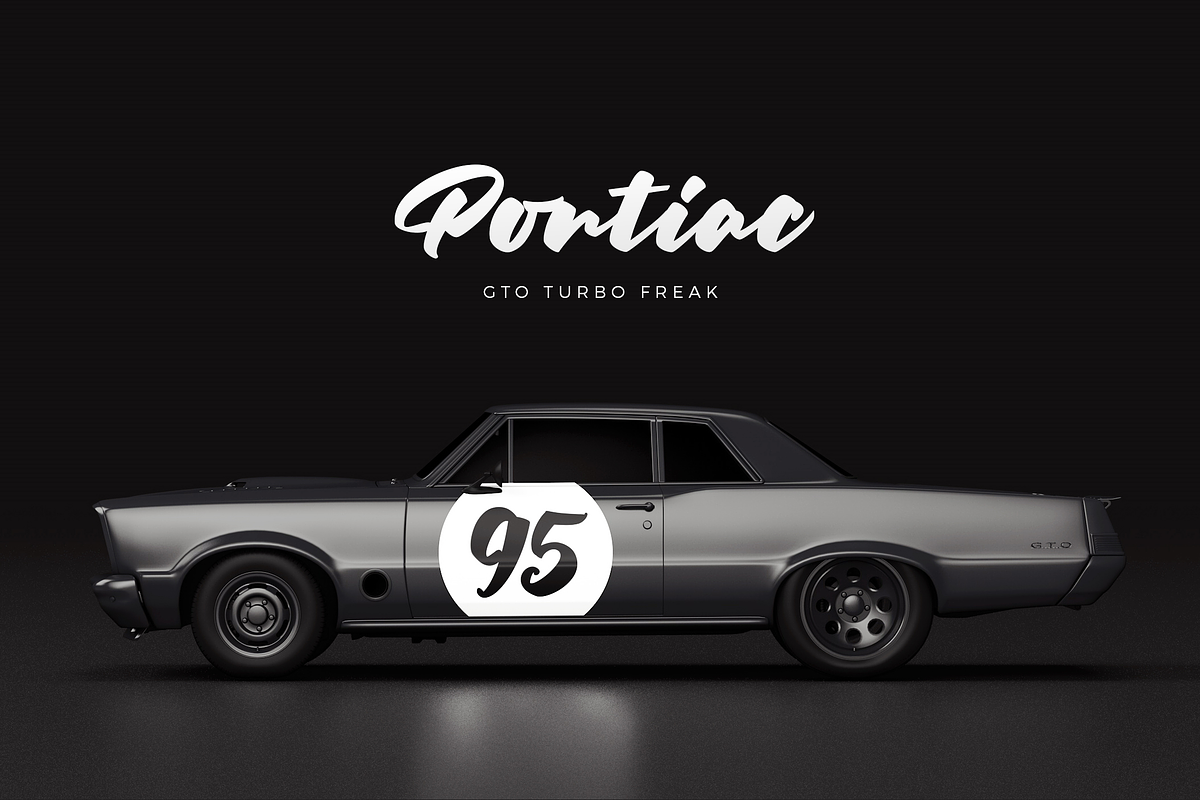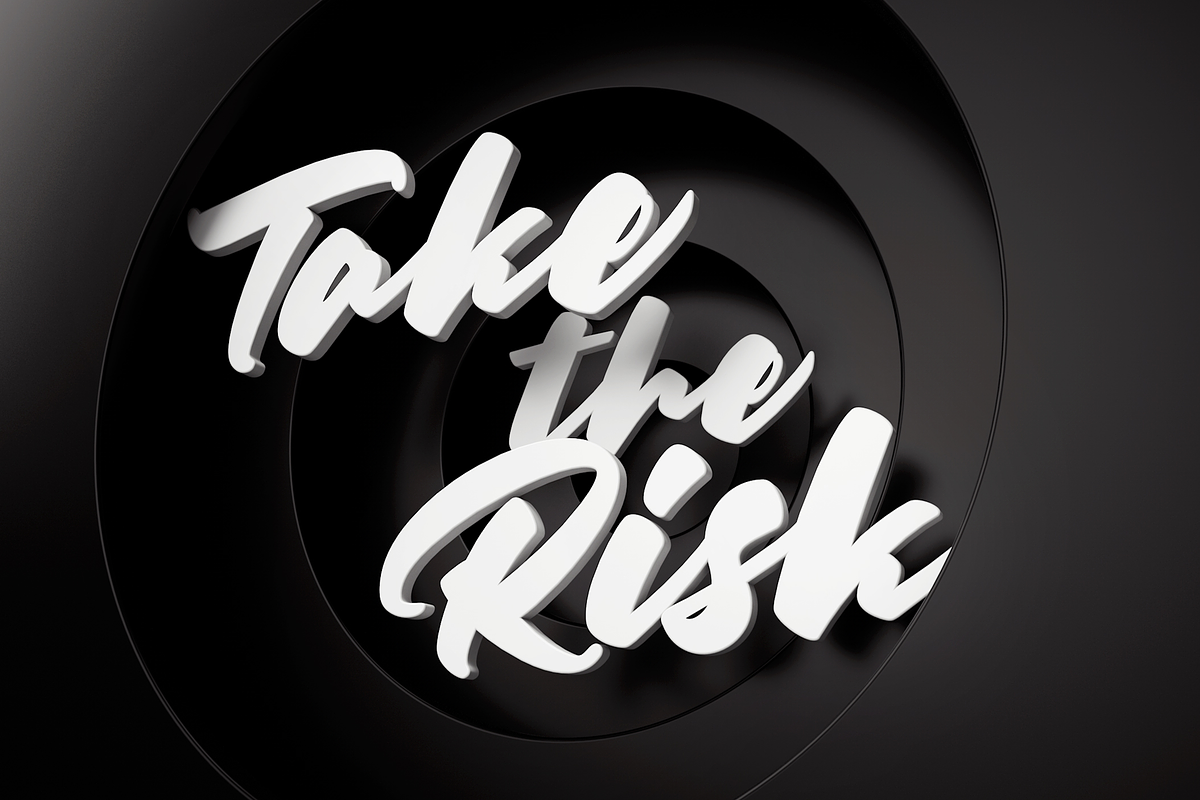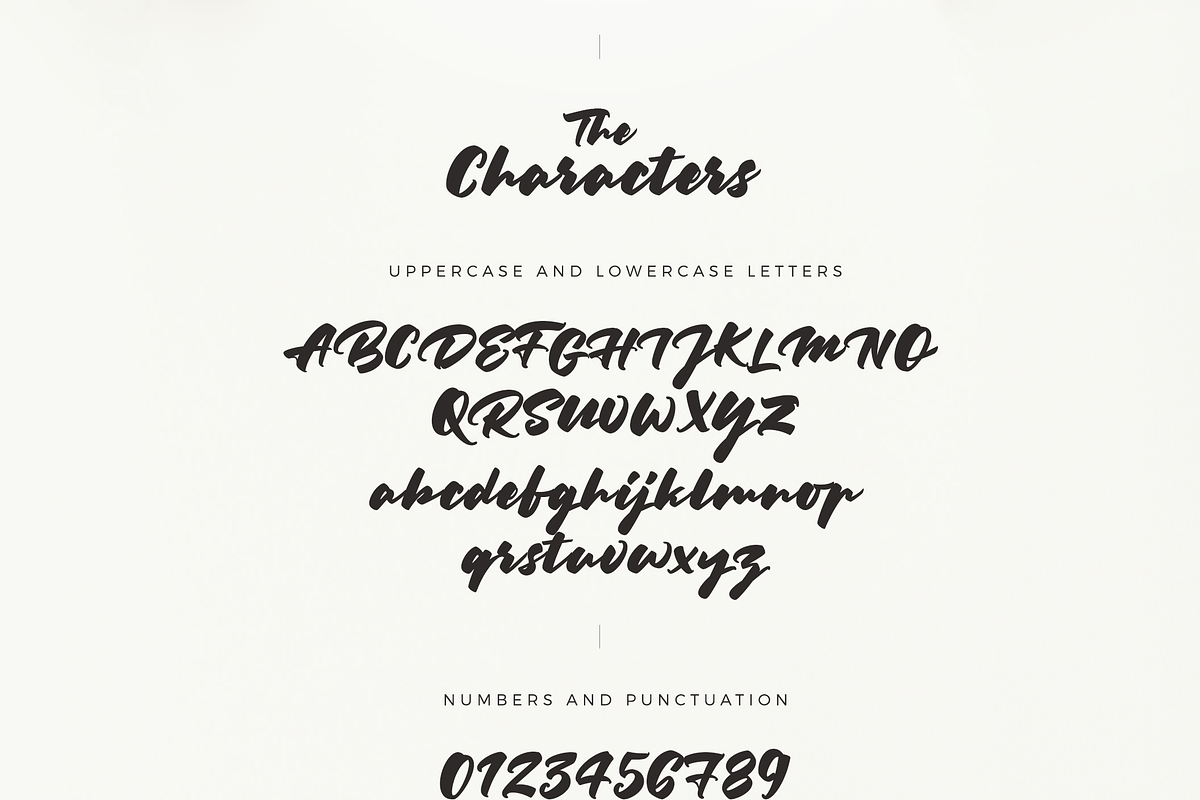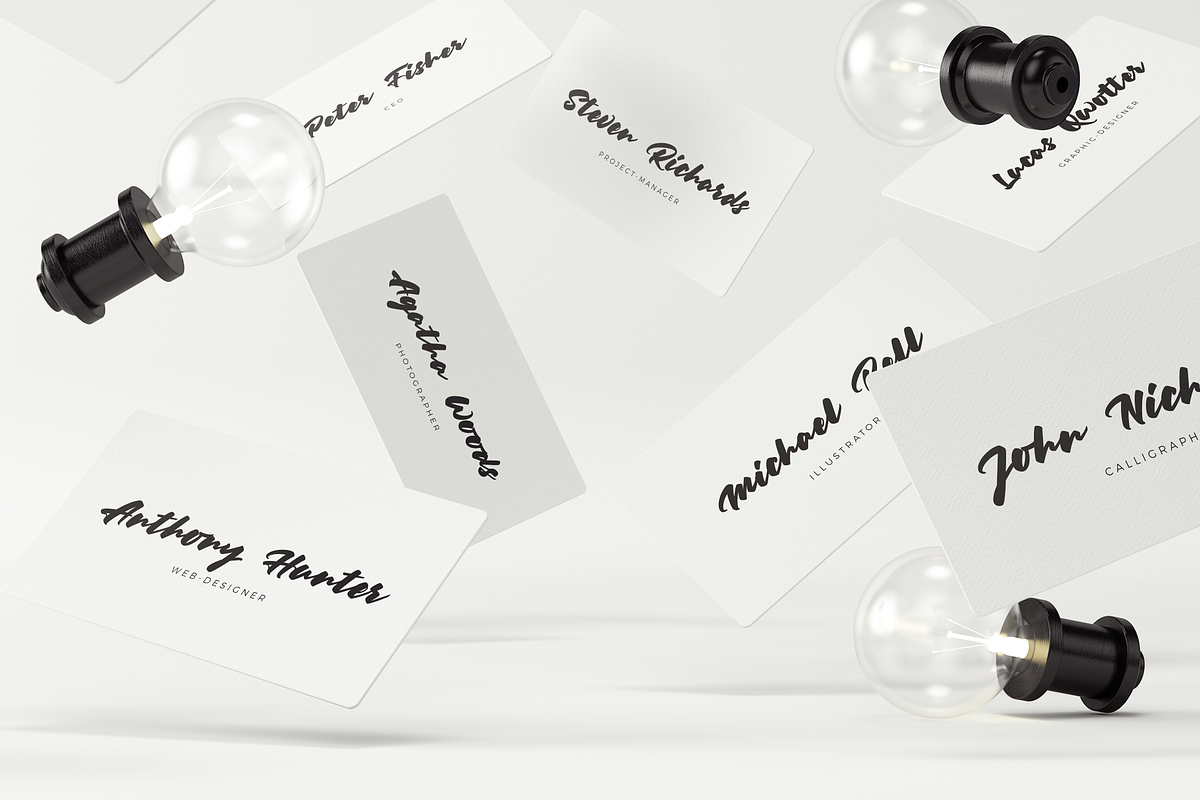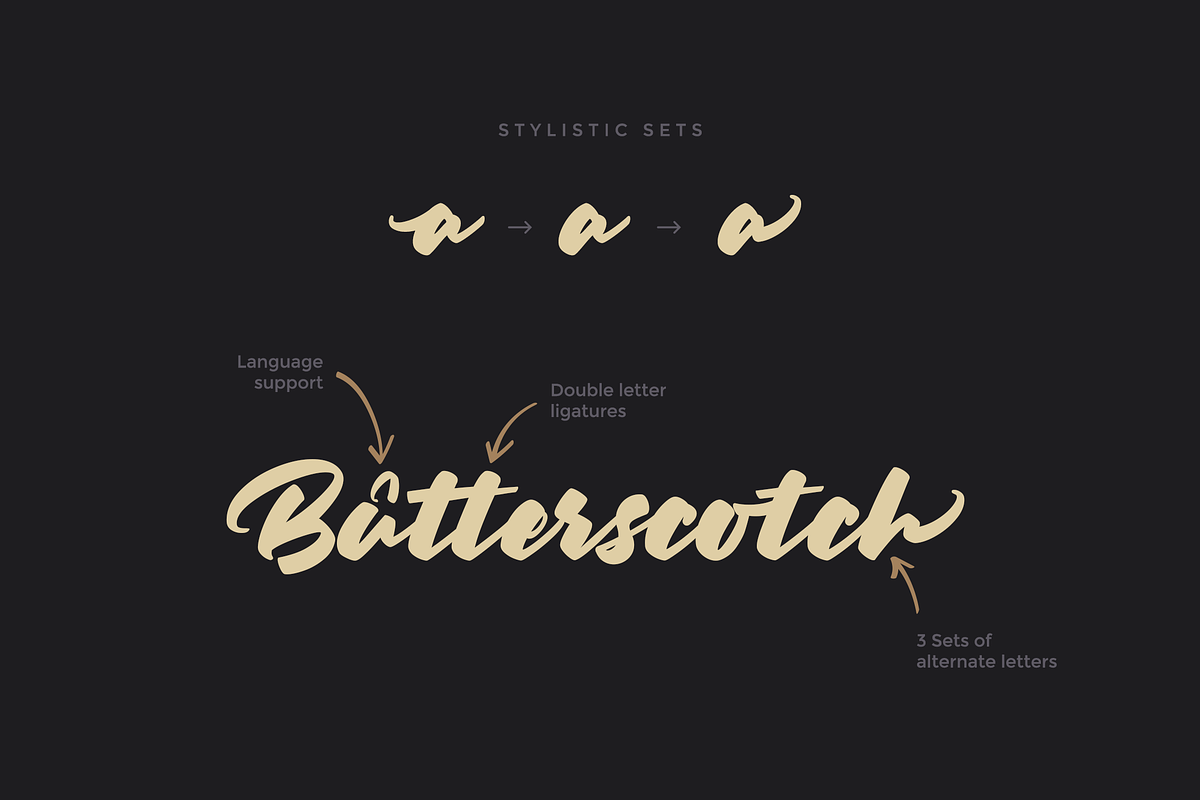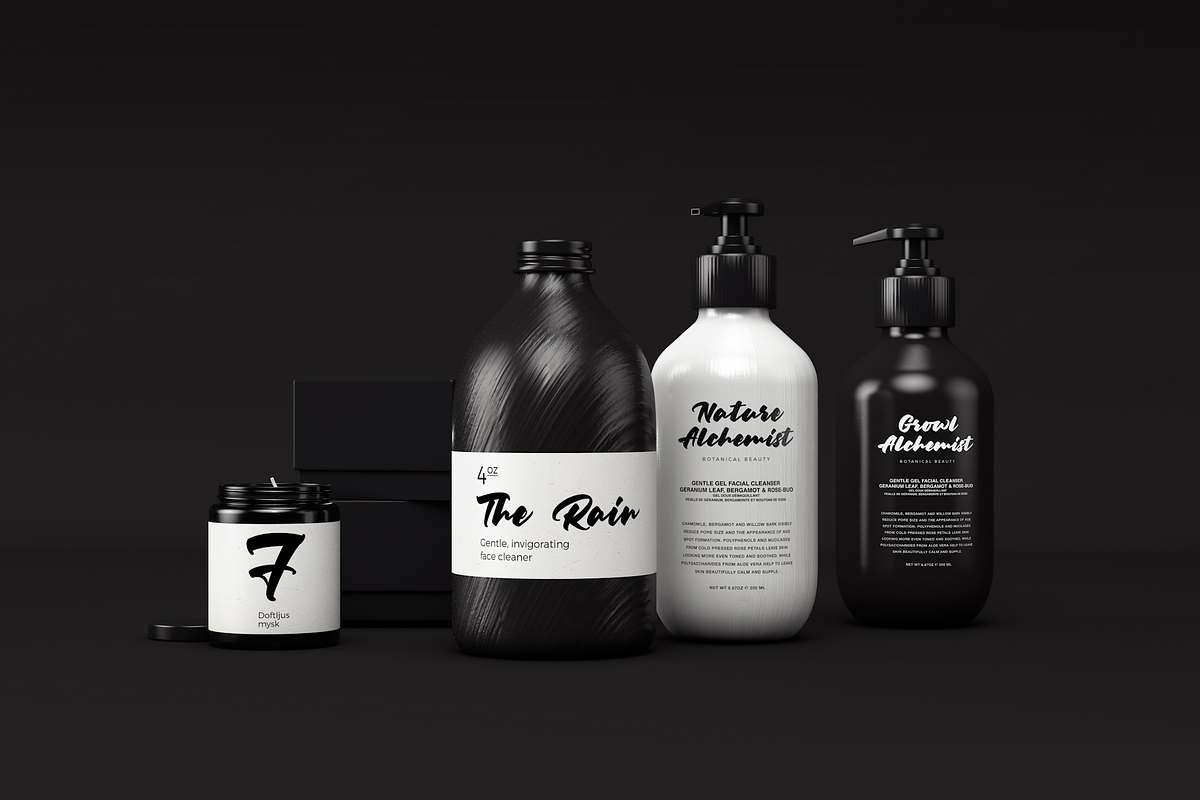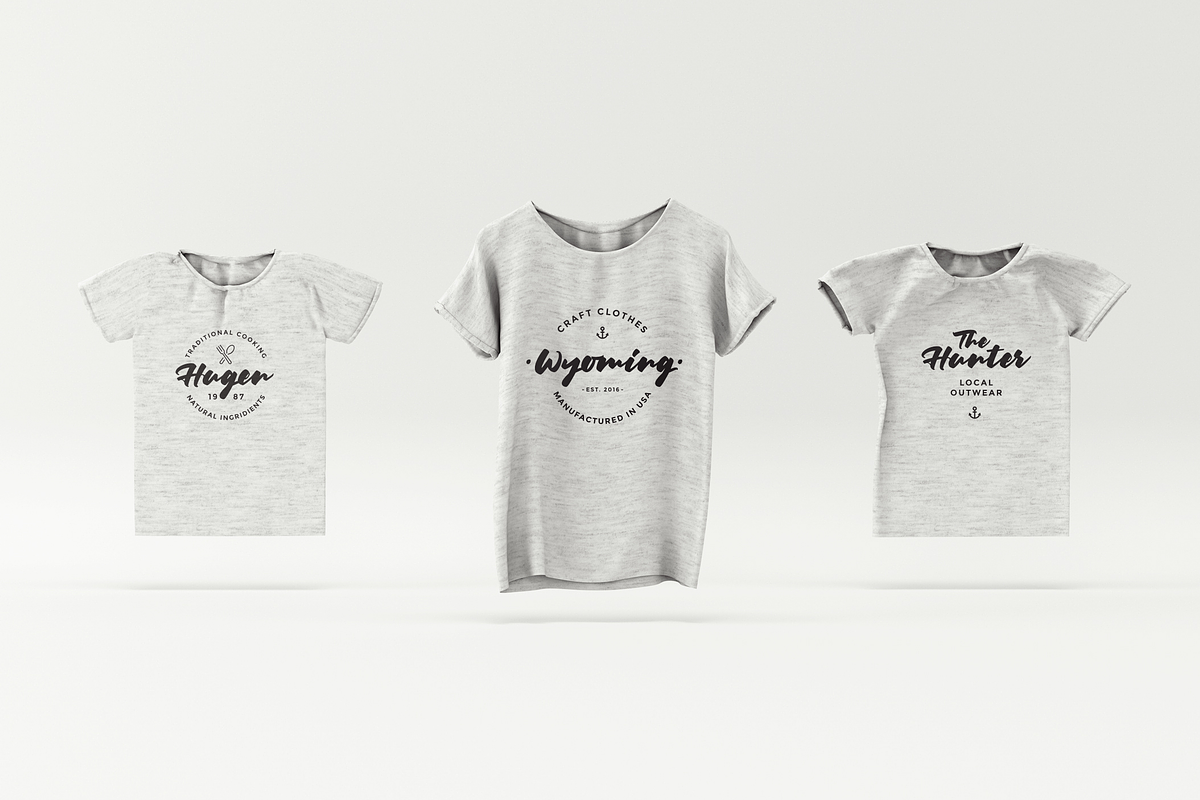
20% Off Keyline Script Font by kavoon is a font selected for branding, posters, packaging, typography.
- Keyline comes with a full set of upper and lower case characters - giving you the extra freedom to turn your text into authentic custom-made
- Keyline font Includes a large range of glyphs including numerals, punctuation & multilingual support.
20% Off Keyline Script Font by kavoon fits naturally into Branding, posters, packaging, typography.